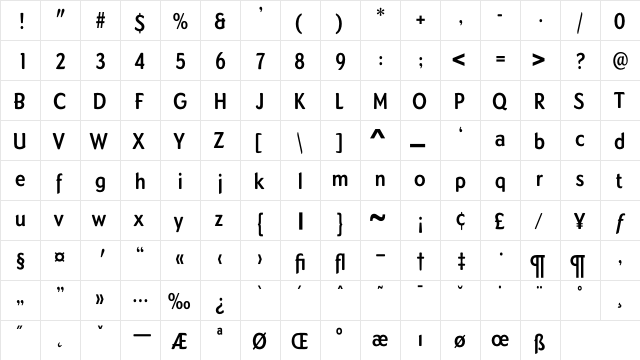
DundeeBoldCond Regular
Design Context for DundeeBoldCond Typeface
DundeeBoldCond offers clean, dependable letterforms without strong stylistic allegiance, making it a practical choice for designers who need flexibility. Its bold stroke weight gives it real presence on the page. Its narrow stance lets it pack a punch even in space-constrained designs.